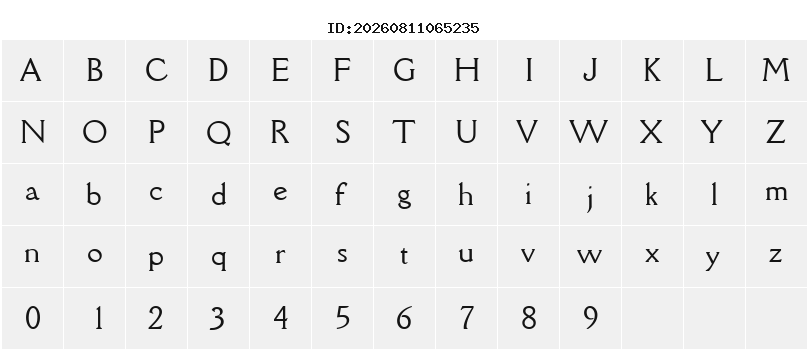
• Font Name: Rory
• Full Font Name: Rory Normal
About Rory.ttf
Rory.ttf is a modern, elegant sans-serif font designed for ultimate readability and visual harmony. Perfect for branding, headlines, web design, and print materials.